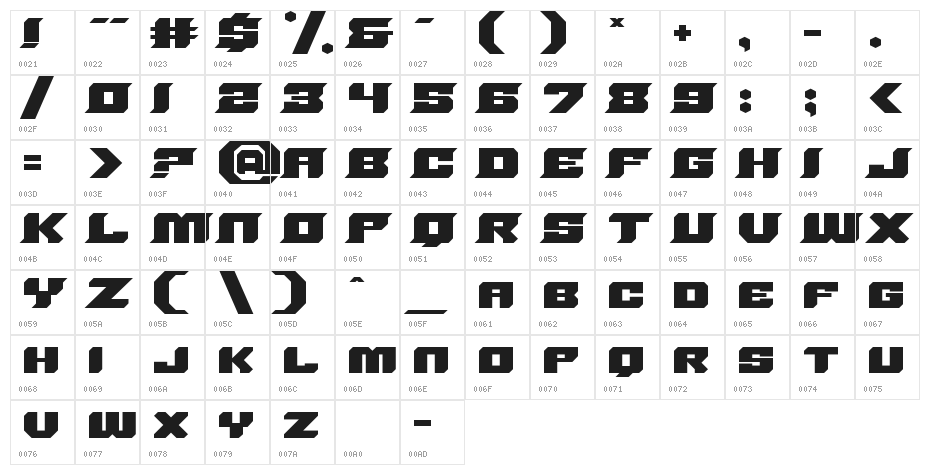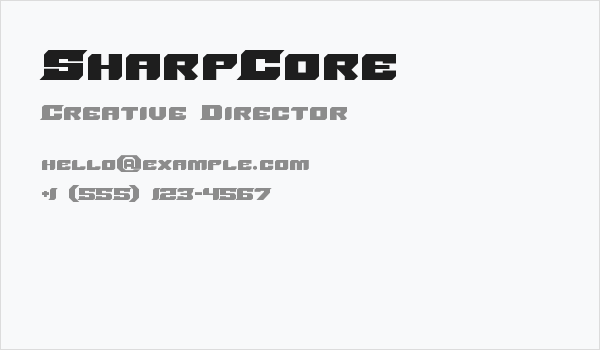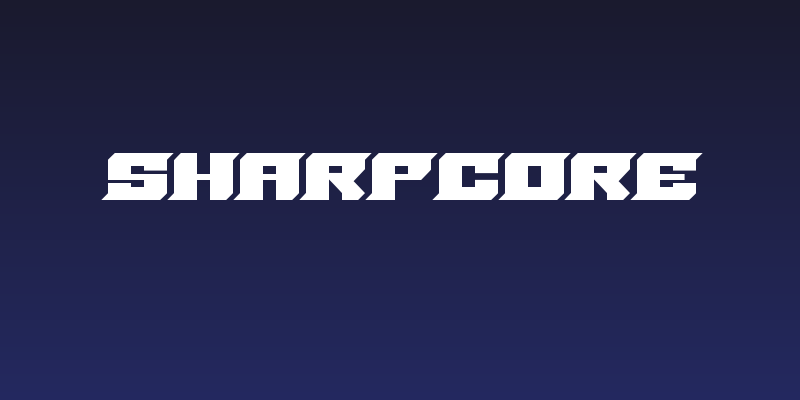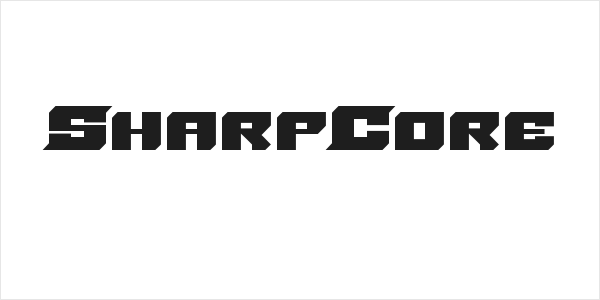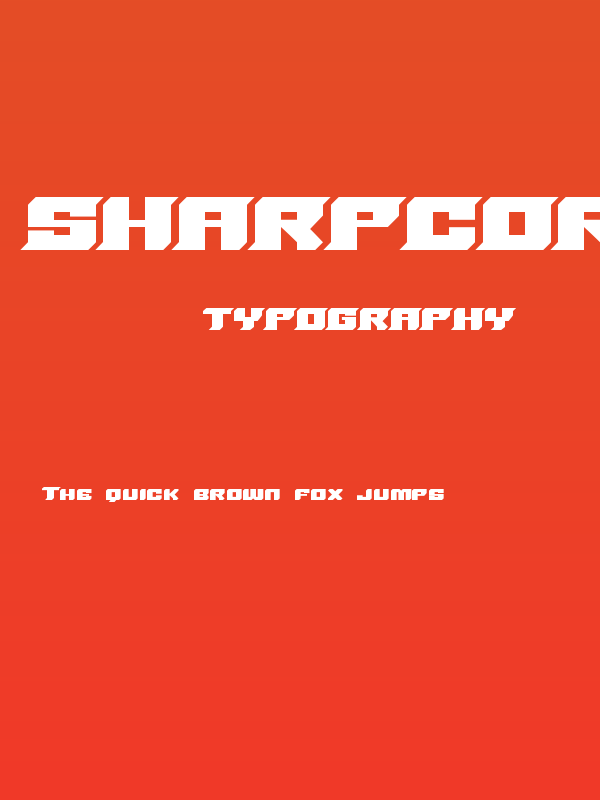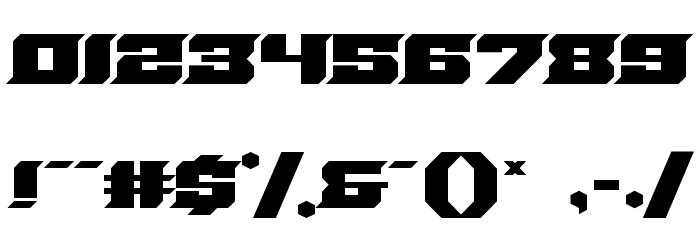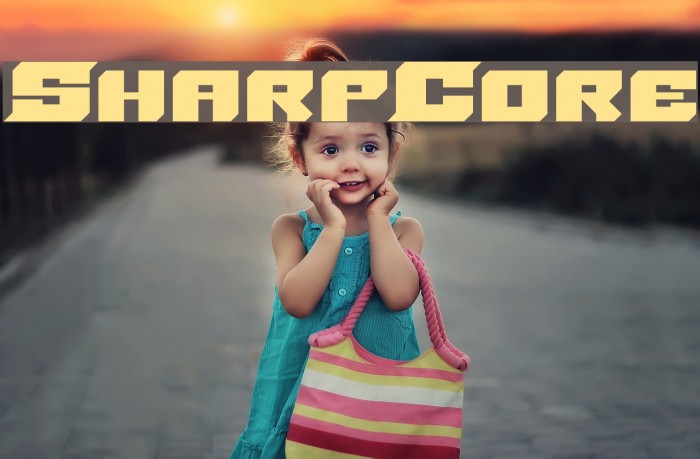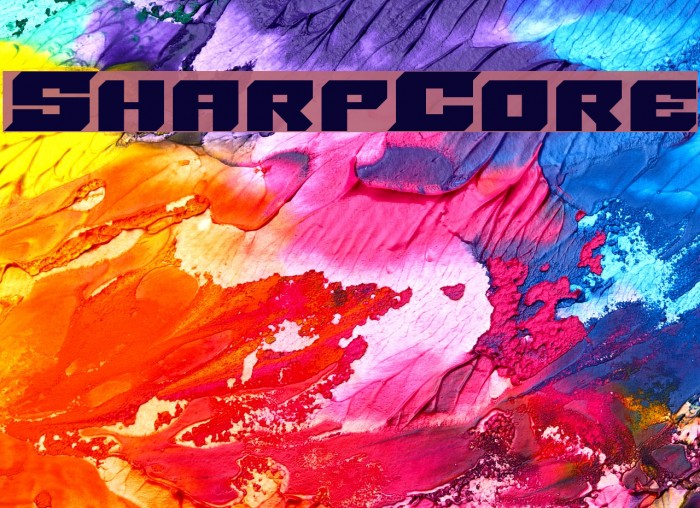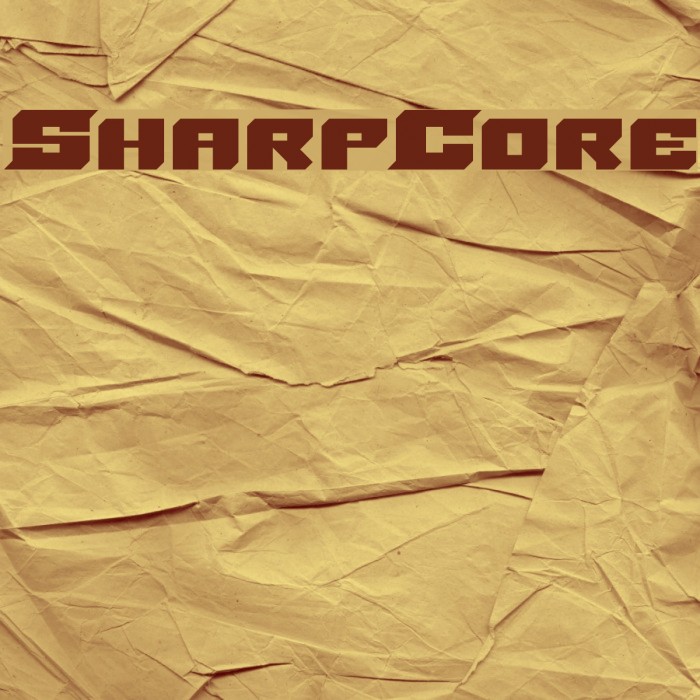
SharpCore Font
SharpCore Description
This font features a bold, geometric design with sharp, angular edges that give it a futuristic and industrial feel. The uppercase and lowercase letters maintain a consistent blocky structure, emphasizing strong horizontal and vertical lines. The numerals and special characters follow the same robust style, ensuring uniformity across all glyphs. Its distinct appearance makes it stand out, suitable for projects that require a modern and edgy look. The font's design is highly legible, even at smaller sizes, due to its clear and defined shapes.